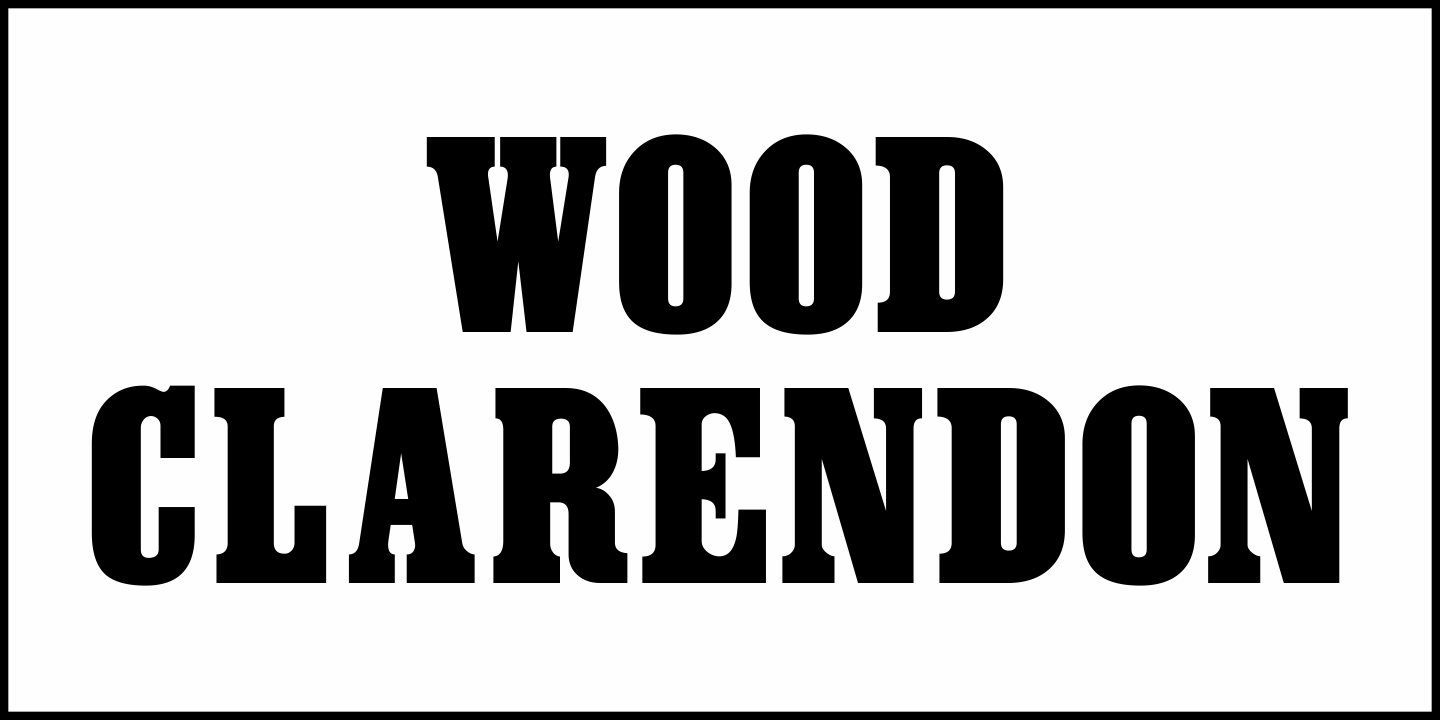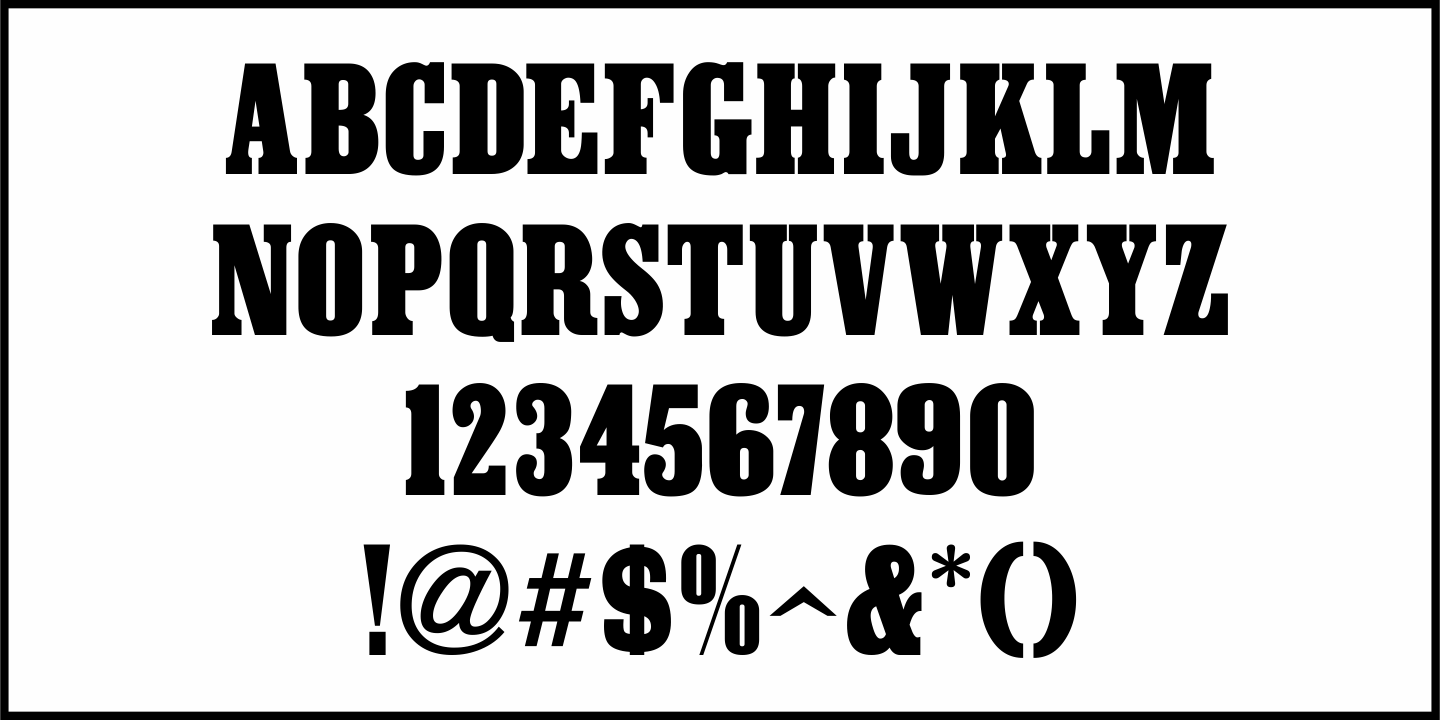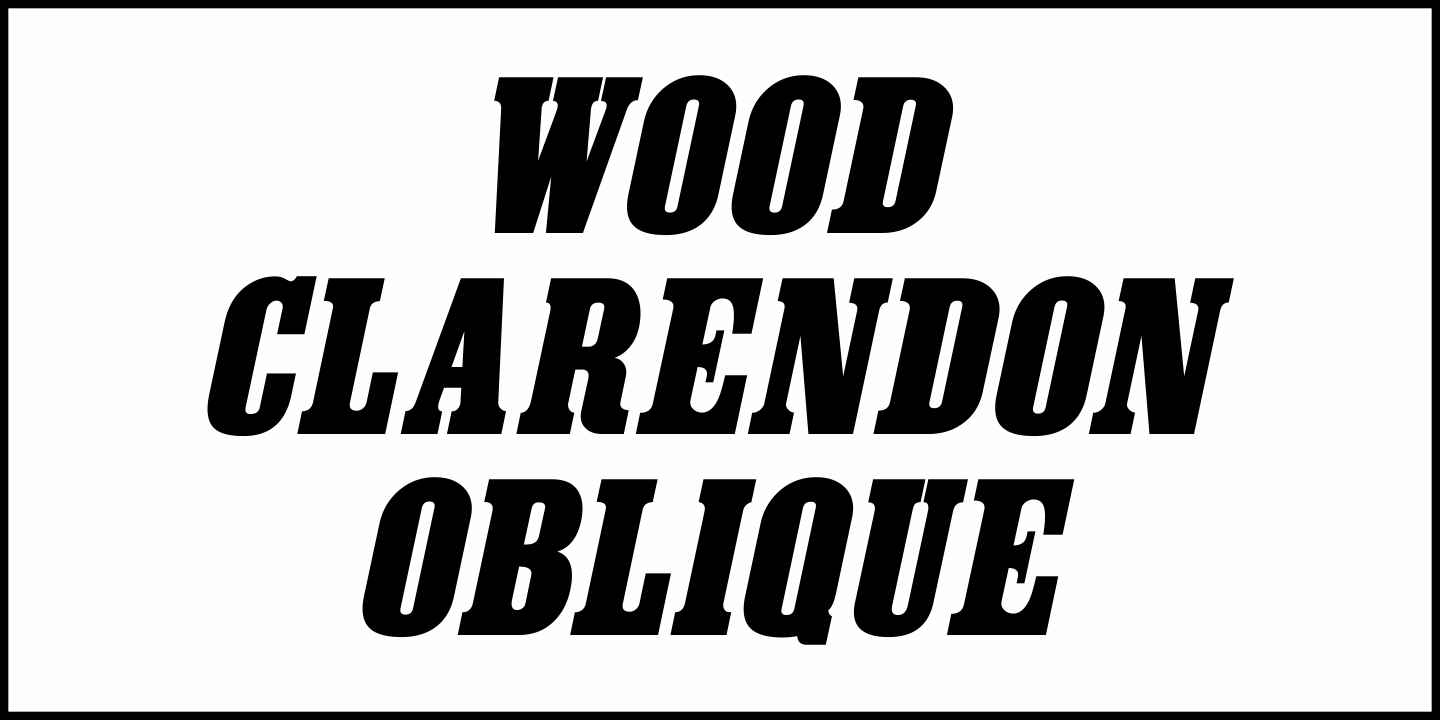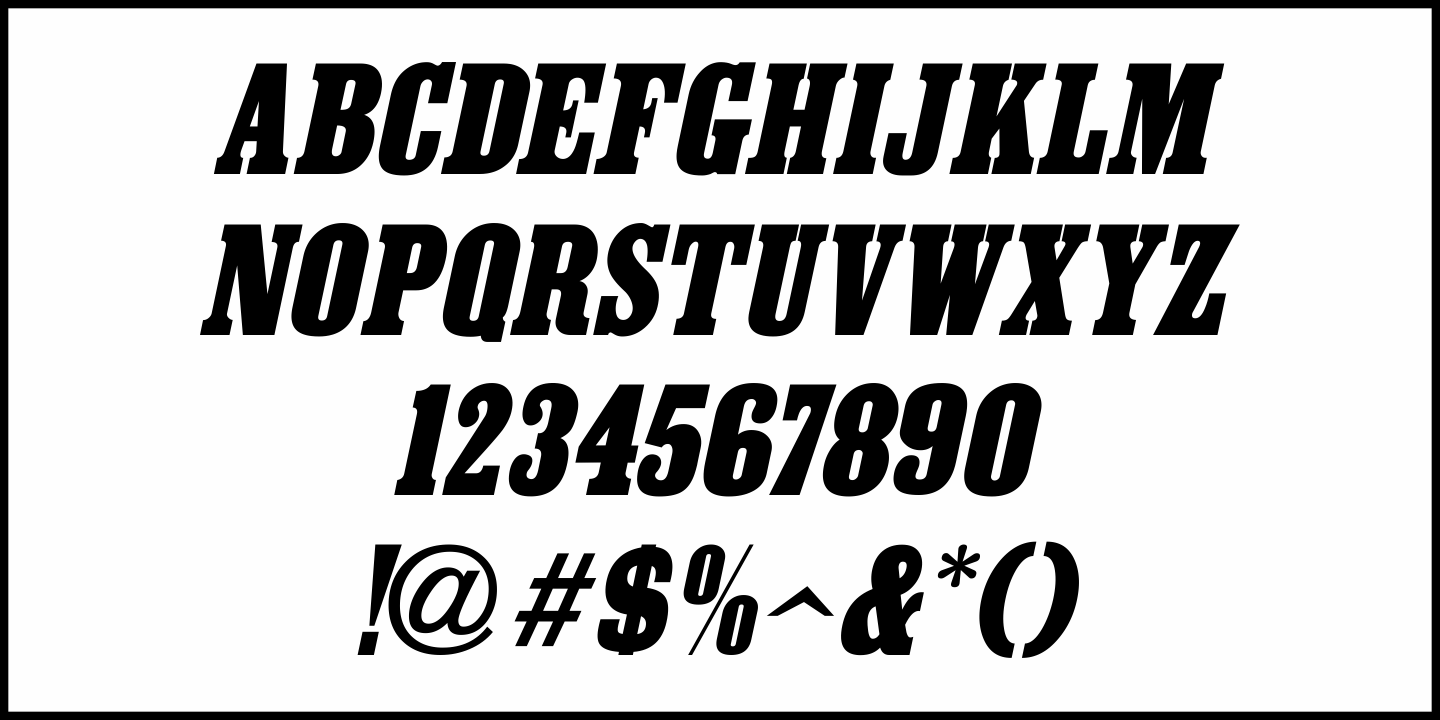
Wood Clarendon
Wood Clarendon JNL is based on Hamilton Clarendon Condensed (circa 1899) and is available in both regular and oblique versions.
The design of this typeface retains many of the charming (but slight) design irregularities often found within pantograph-cut wood type from the 1800s through the early 1900s.